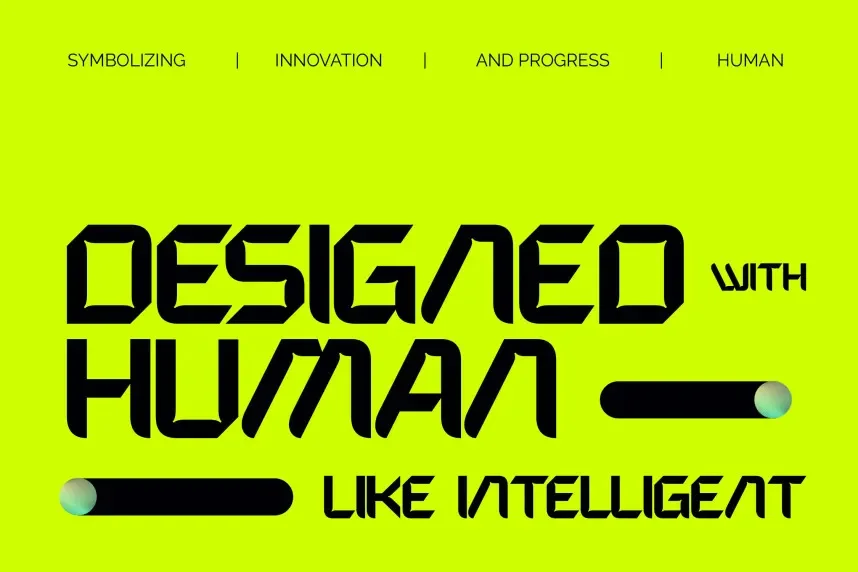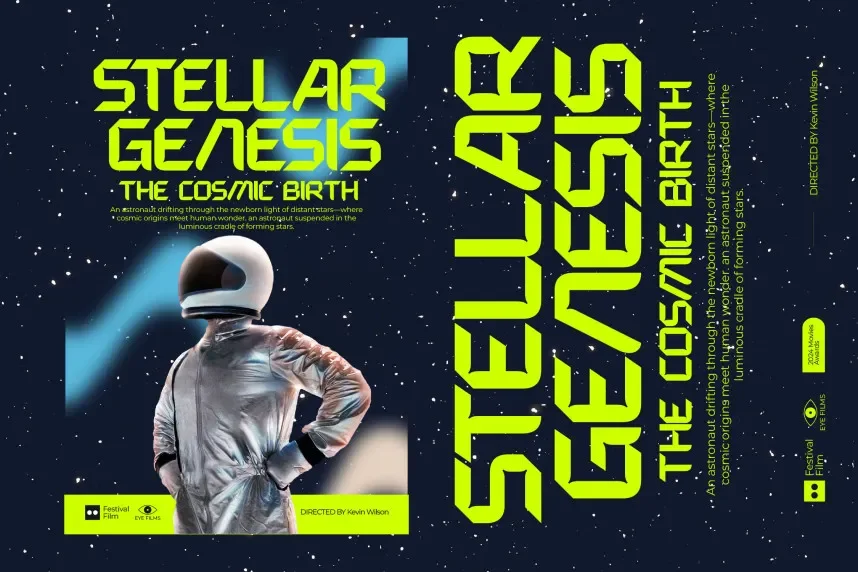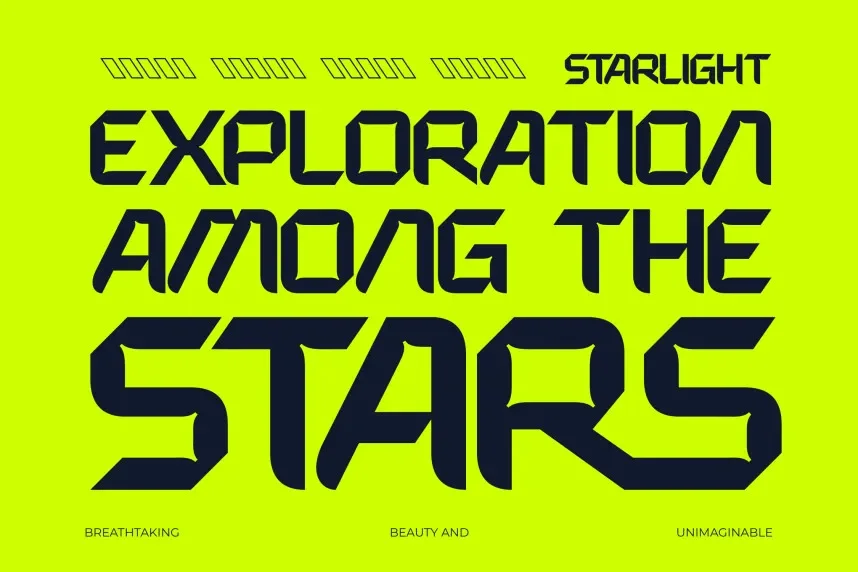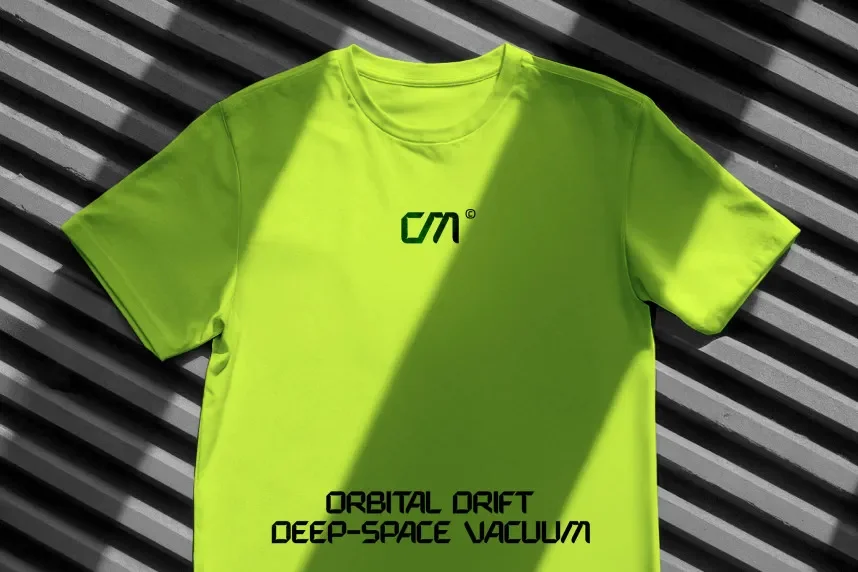
Expanse Cosmic Font is a futuristic display typeface designed for technology, gaming, and space-themed projects. Its distinctive letterforms address the challenge of visibility and thematic consistency.
The font features sharp angles, extended letterforms, and unique stylistic alternates. Multiple weights allow dynamic compositions for logos, posters, digital content, and social media headers, providing a bold and modern visual identity.